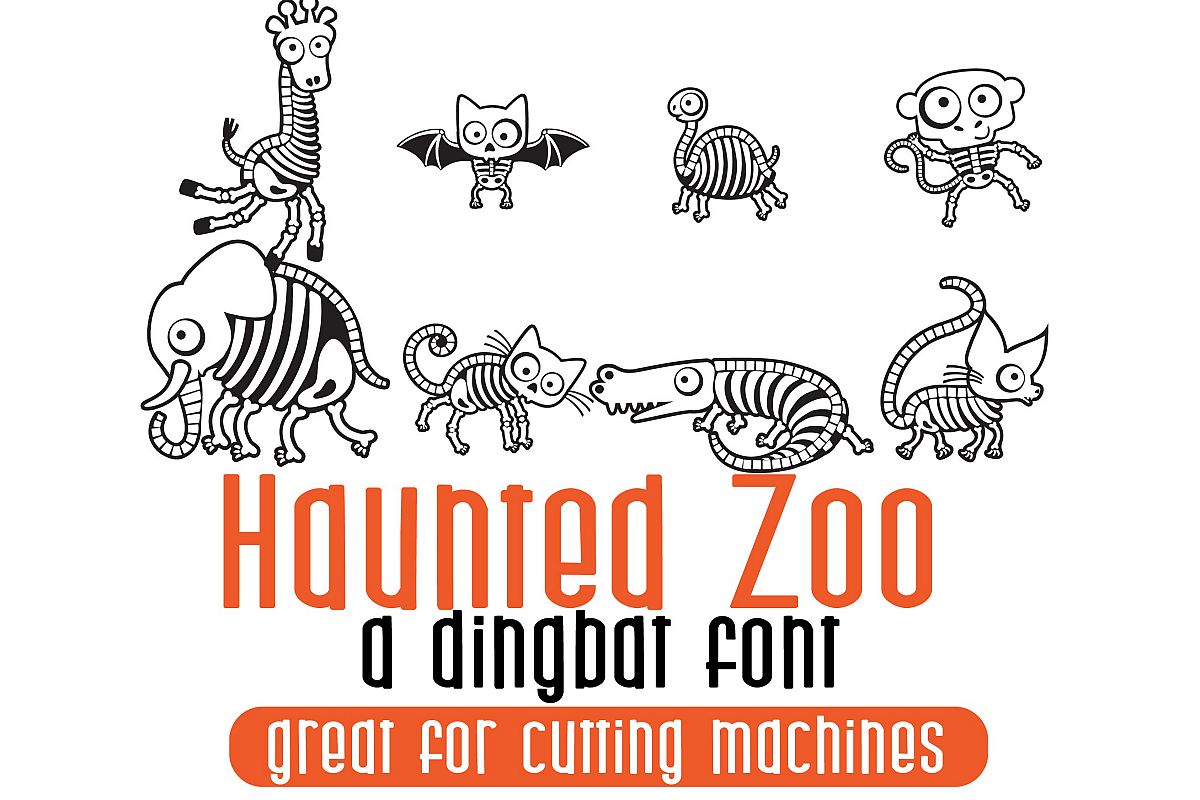
This dingbat font has 26 adorable of the cutest animal skeletons you have ever seen. These glyphs were made with care so they can be cut on a cutting machine.
Font includes the same characters in both the upper and lowercase.